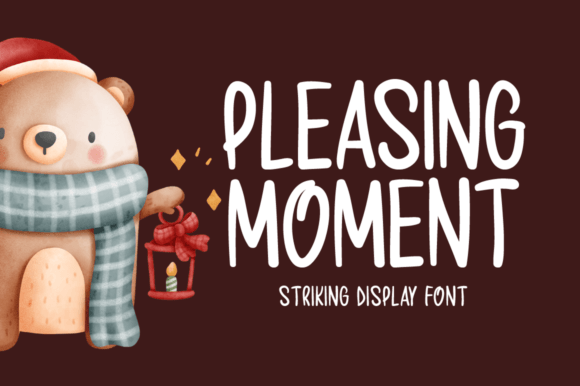
Journey into a world of visual enchantment, where letters dance with grace and harmony, creating an unforgettable impact like no other. Enter Pleasing Moment Font, a spectacular display font that elevates your designs to breathtaking new heights.
Behold the majesty of Pleasing Moment, a creation of Seemly Fonts, a master of typographic artistry. This font family exudes an aura of timeless beauty, captivating audiences with its striking lines and alluring curves. Embrace the boundless possibilities it unveils, allowing you to craft masterpieces that speak volumes.
With Pleasing Moment as your creative companion, embark on a voyage of boundless expression. Its versatility knows no bounds, seamlessly flowing from stationery and captivating prints to remarkable designs on t-shirt and website headers. This font family adapts effortlessly, adding a touch of magic to every concept it graces.
Imagine your designs adorned with the captivating beauty of Pleasing Moment. Its ability to elevate titles is unmatched, commanding attention and leaving an indelible mark. With intricate details and a touch of whimsy, your words will transform into captivating works of art, enchanting the senses and captivating hearts.
Dive into the realm of boundless creativity with Pleasing Moment. Unleash your imagination and witness the birth of extraordinary designs that resonate with beauty, grace, and an undeniable allure. This font family is your gateway to a world of visual wonders, where typography takes center stage.